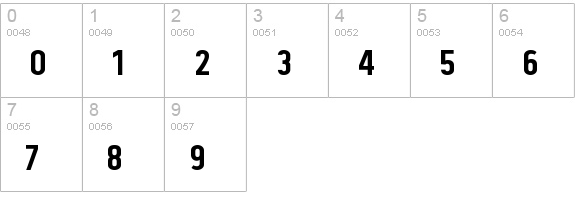
Tolyer Regular no.3 is the standard, neutral variant in the Tolyer typeface family \xE2\x80\x94 well suited to general body text, paragraphs, and standard typographic work.
Introducing Tolyer Regular no.3 font - a sophisticated and versatile typeface that exudes elegance and charm. With its sleek lines and modern design, this font is perfect for a wide range of creative projects, from branding to editorial design. The clean and contemporary look of Tolyer Regular no.3 font makes it a great choice for both digital and print applications. The best part? Tolyer Regular no.3 font is available for free download at FontsMarket.com. Whether you're a seasoned designer looking to add a fresh touch to your work or a beginner exploring the world of typography, this font is sure to inspire and elevate your designs. Don't miss out on the opportunity to enhance your projects with this stunning font - download Tolyer Regular no.3 today and let your creativity shine!